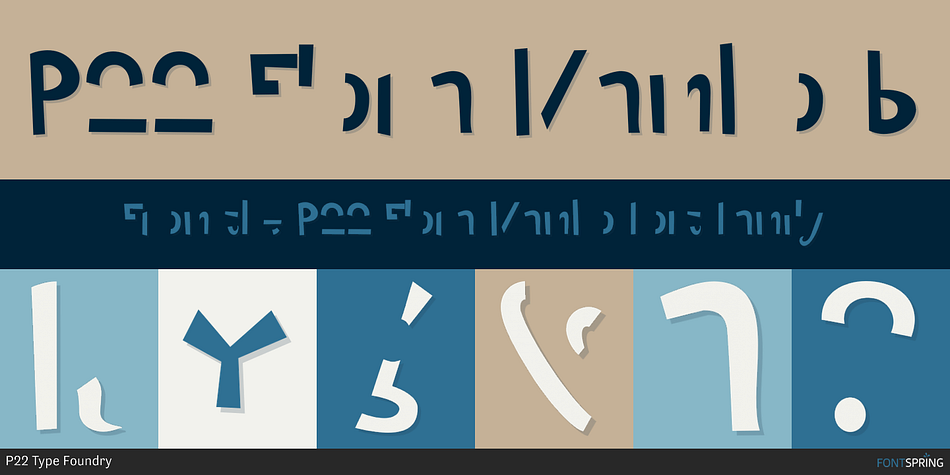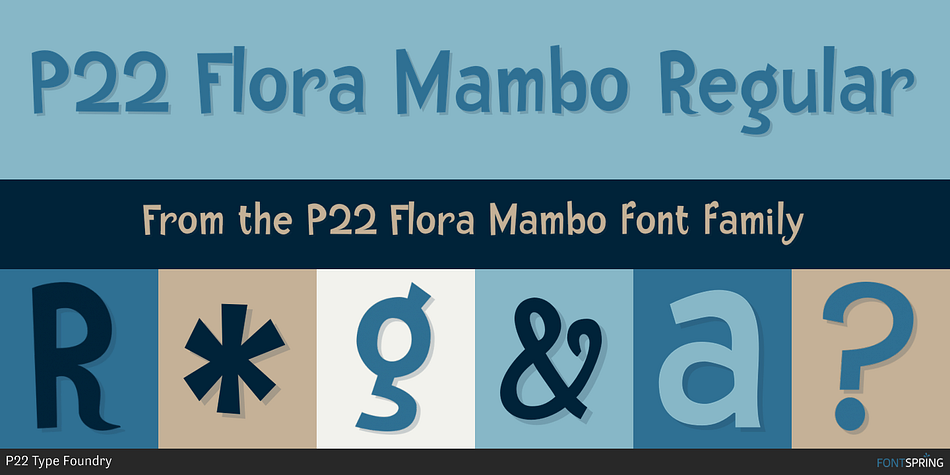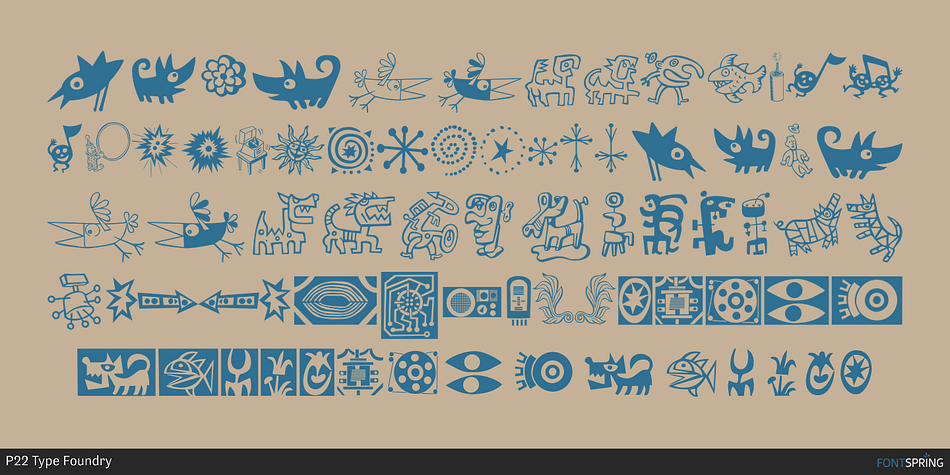
P22 Flora Mambo is a dingbat and display font family. This typeface has three styles and was published by P22 Type Foundry.
The P22 Flora Mambo Set contains 3 fonts- Flora Mambo, a 2-part font that can be used to achieve 2-color text in the style of Flora’s iconic 1955 album design, “Mambo for Cats” and Flornaments, a set of 72 ornaments that features a variety of Flora’s illustrative styles from his Jazz album covers to children’s books to his fine art prints.
Please note that P22 Flora Mambo B is not intended to be used on its own but rather is included with P22 Flora Mambo to create 2-color text. For best results, use with page layout applications.